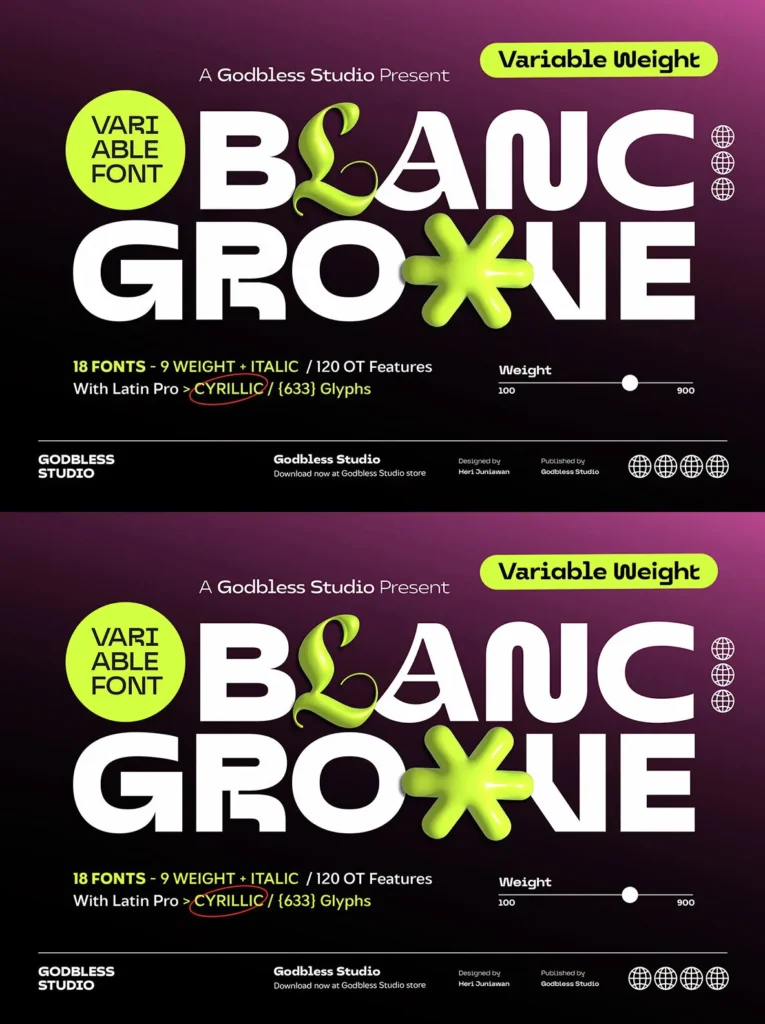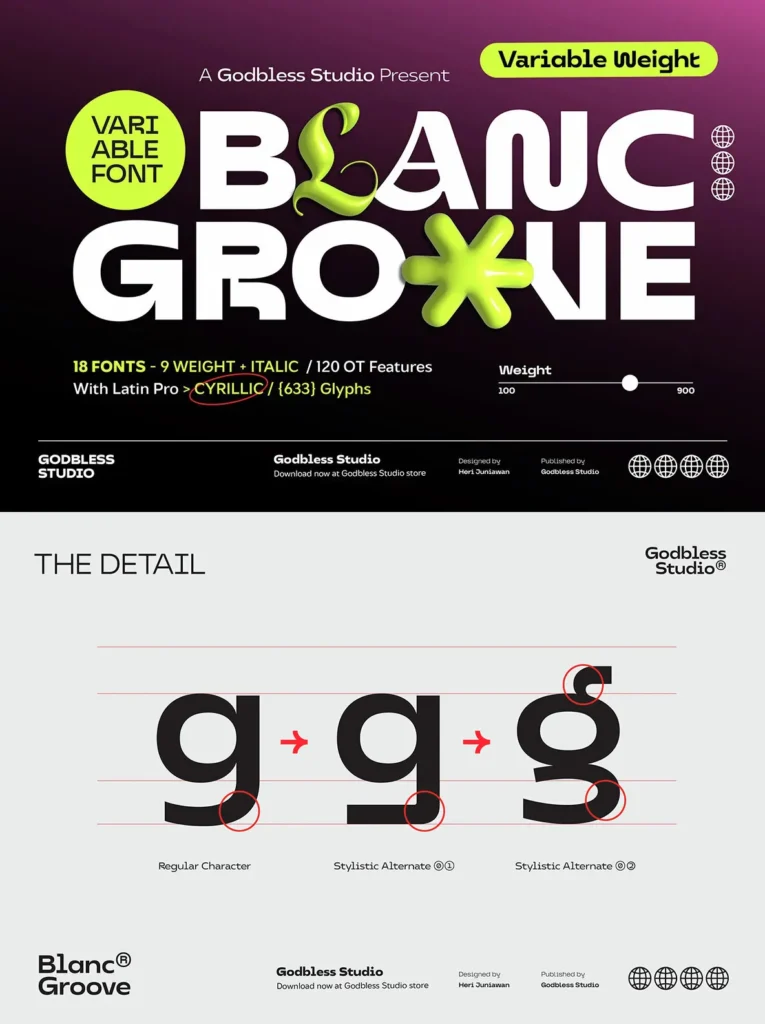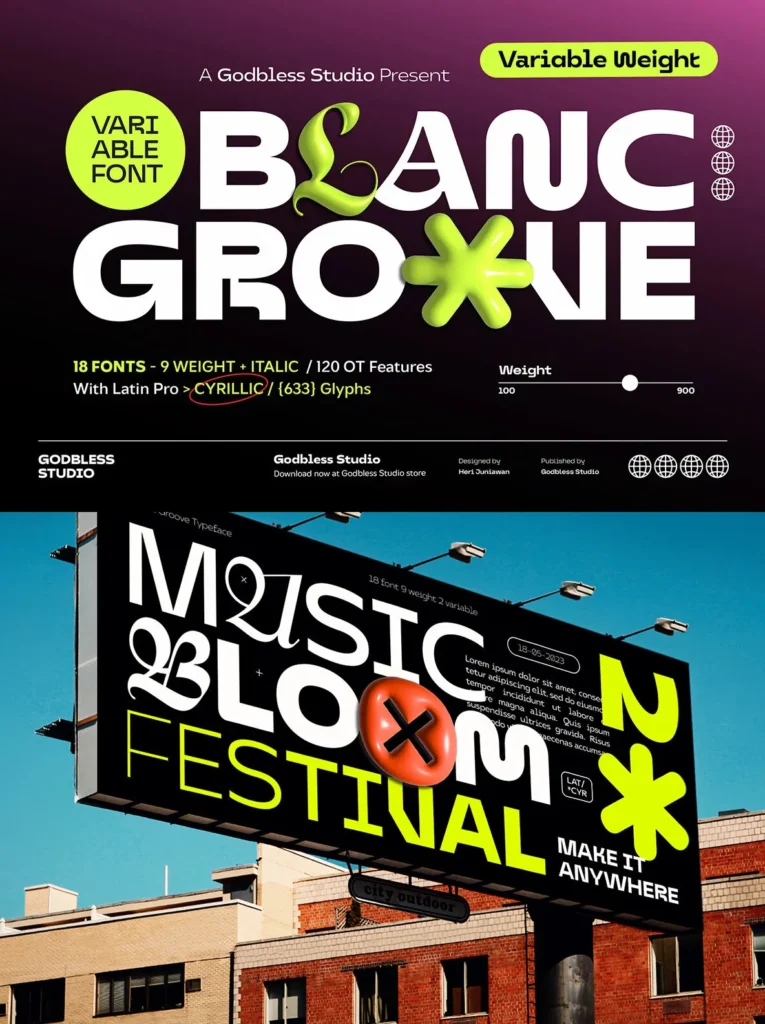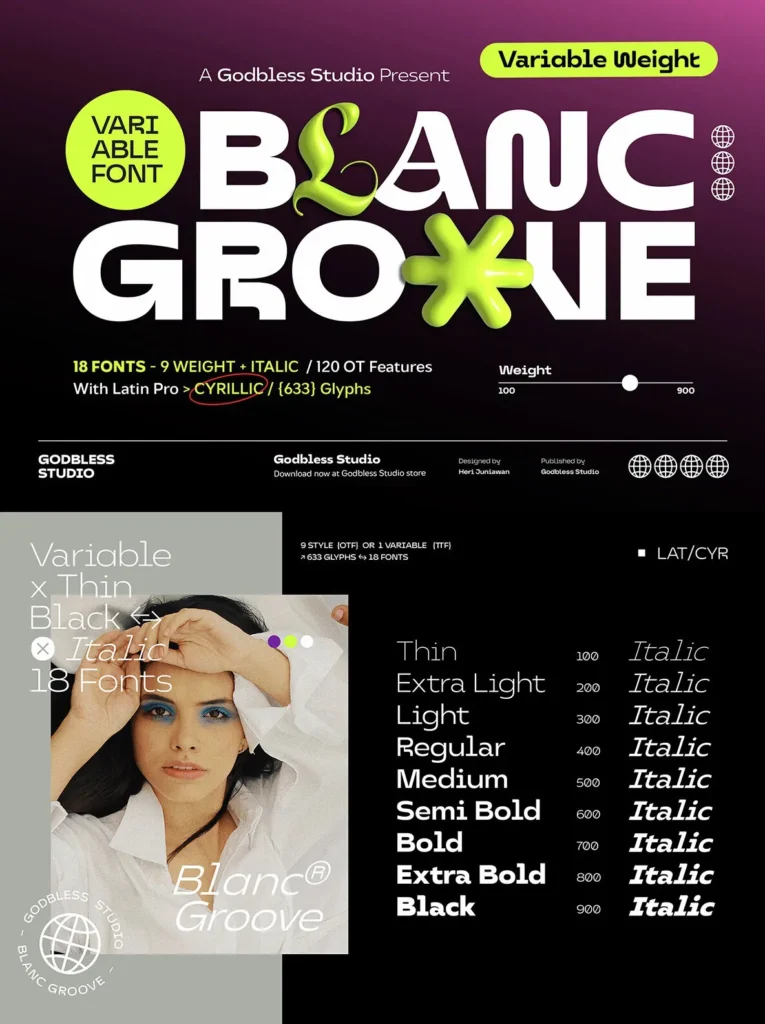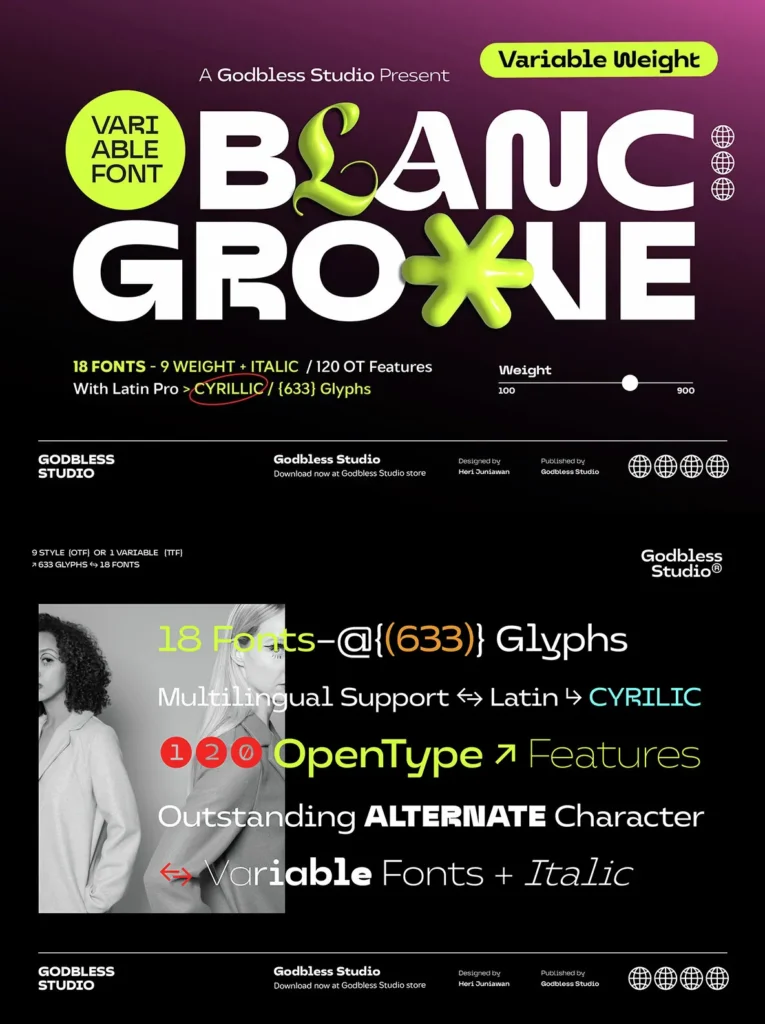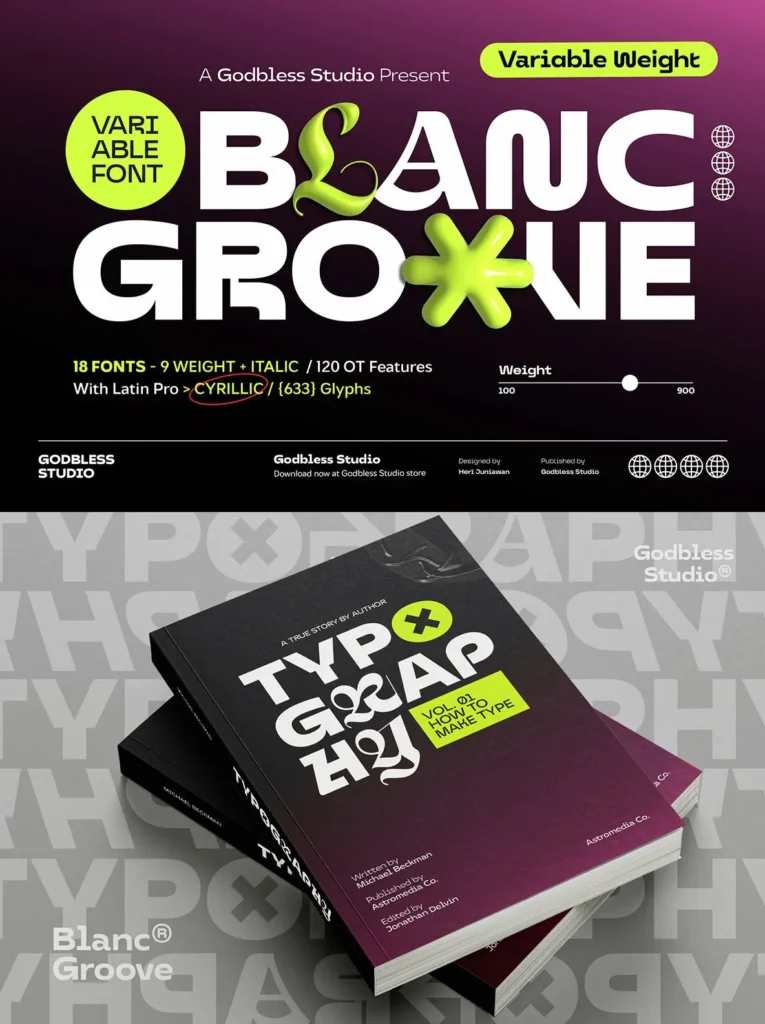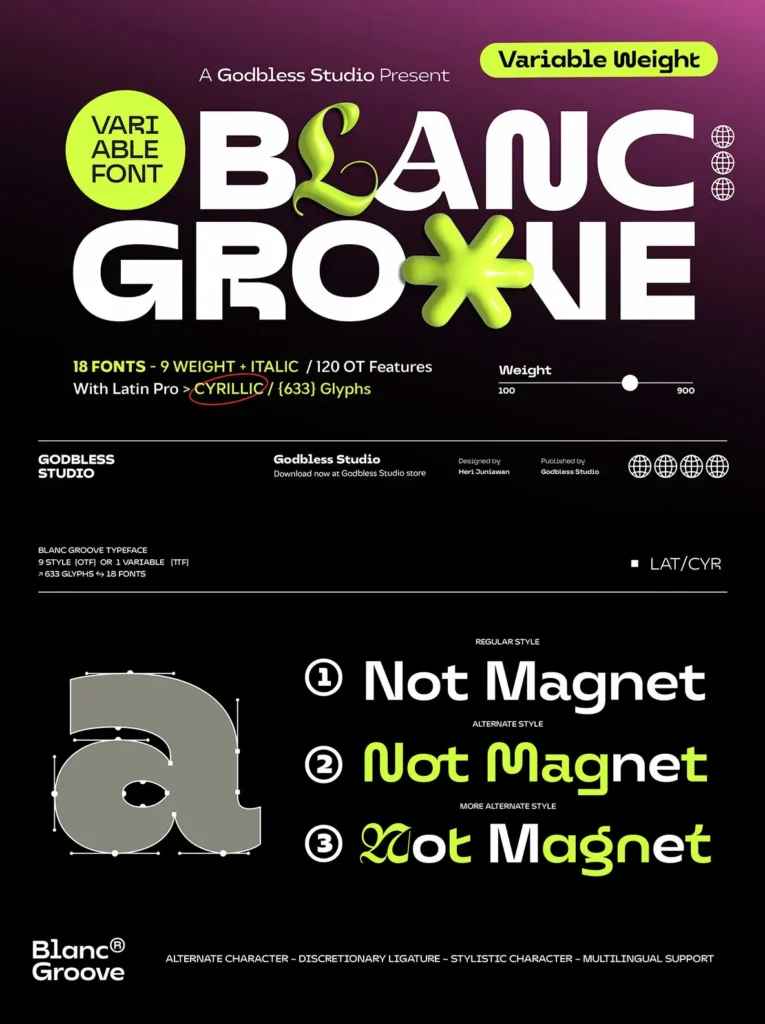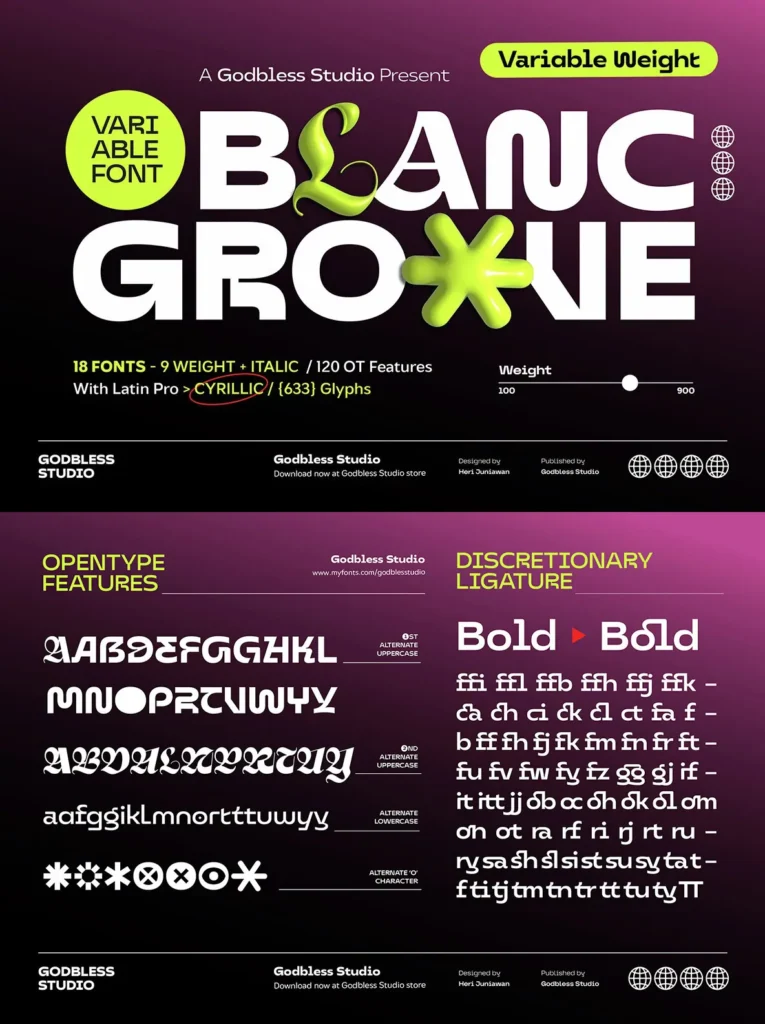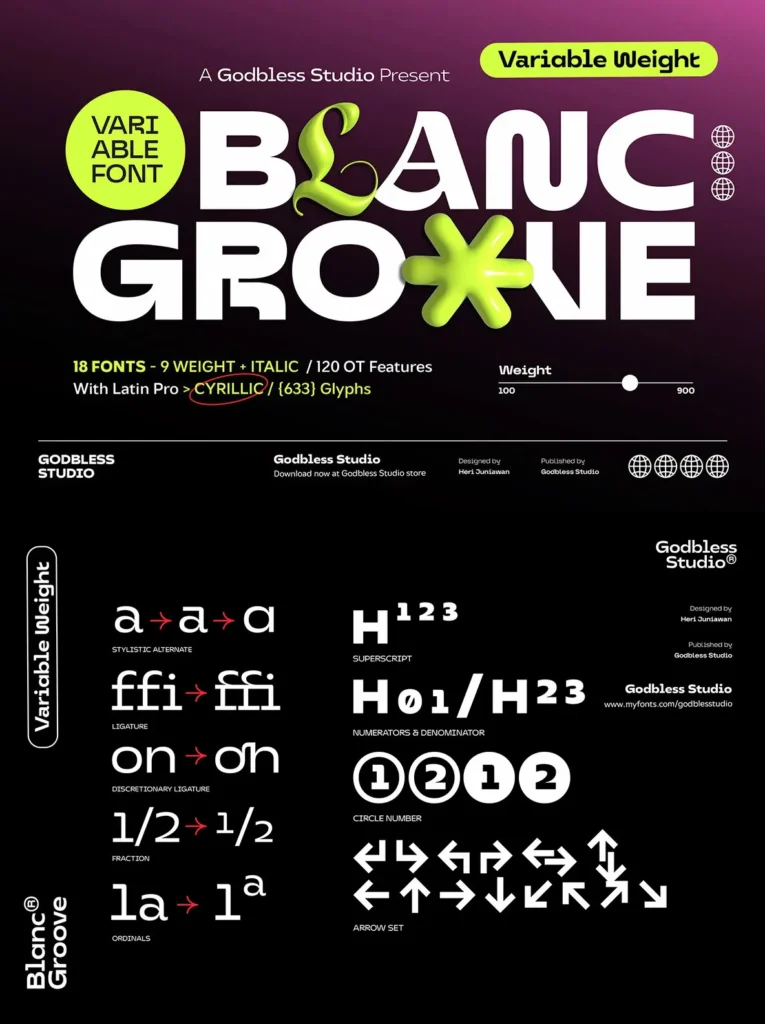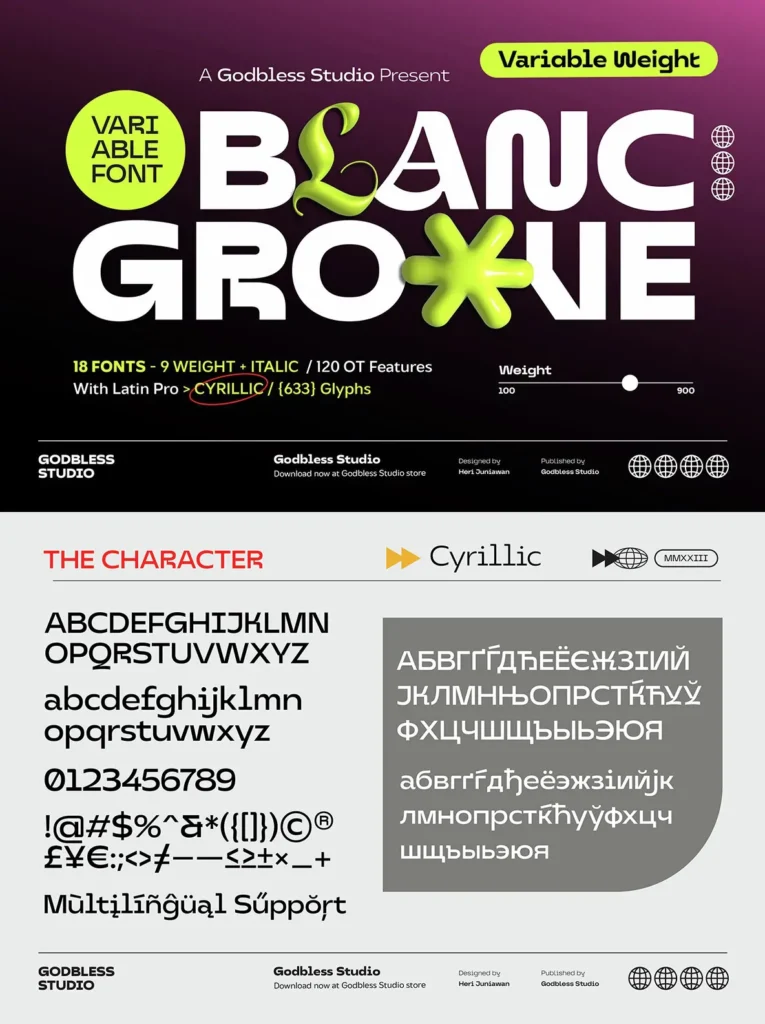
Blanc Groove Font
Blanc Groove: Futuristic Versatility in Typography
Blanc Groove offers a uniquely futuristic and experimental aesthetic, crafted with a charismatic flair. This font embodies current design trends, delivering a striking presence across diverse projects.
Blanc Groove’s experimental approach features alternative characters and a distinctive display that enhances its stylish and varied nature. As a variable font system with 18 styles—spanning nine weights and two variations from thin to black and italic—its versatility is evident. Its designs, primarily targeted at display uses, promise a significant visual impact.
Variable Options
Thin & Italic
Light & Italic
ExtraLight & Italic
Regular & Italic
Medium & Italic
SemiBold & Italic
Bold & Italic
ExtraBold & Italic
Black & Italic
Features
Alternate Characters
Ligatures
Discretionary Ligatures
Multilingual Support
Numerals & Punctuation
Symbols